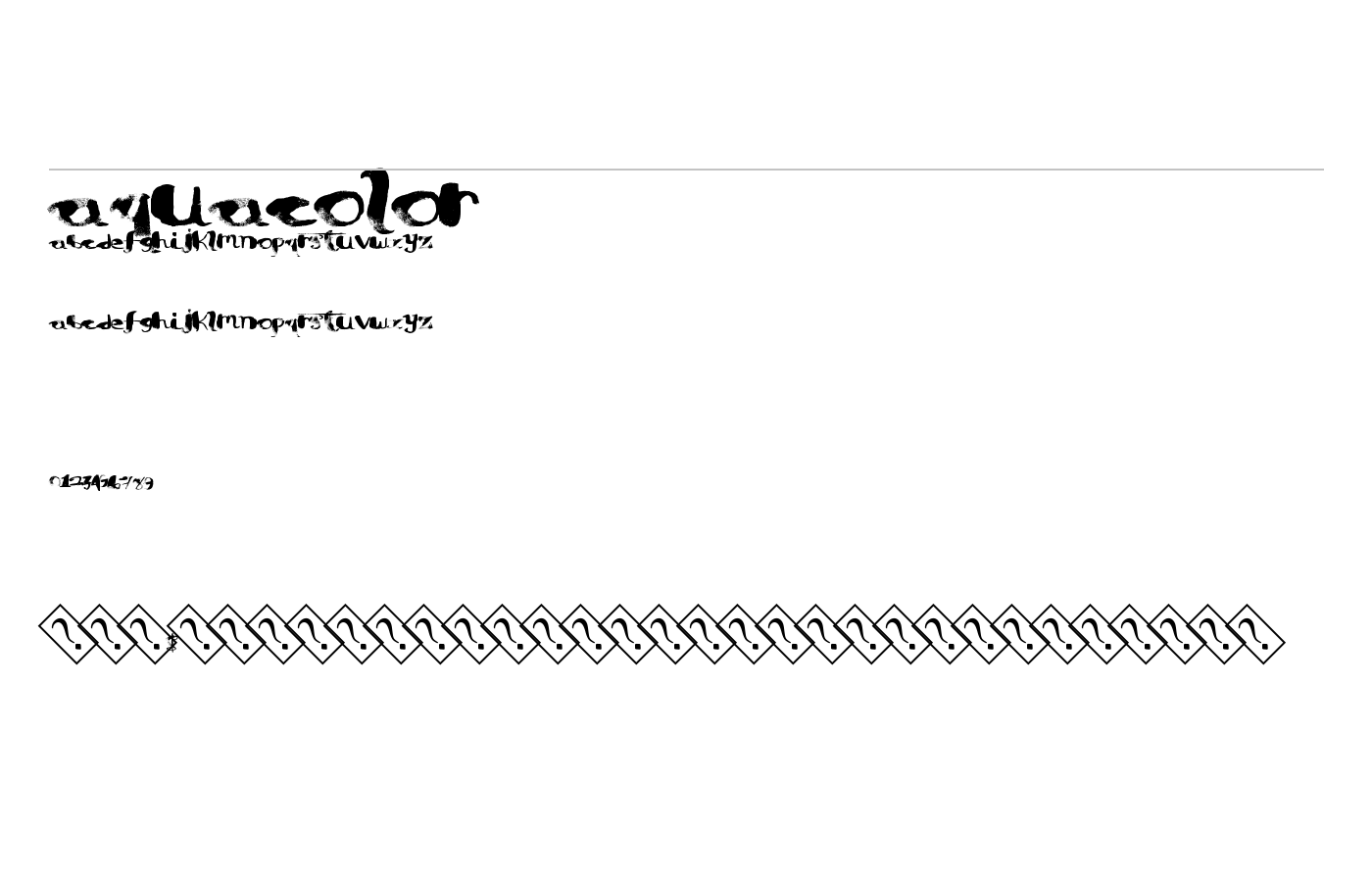
AquaColor is an expressive and artistic font characterized by a rough, hand-painted style that conveys a highly textured and organic feel. Its irregular shapes and bold strokes make it ideal for creative, edgy designs, particularly in branding, posters, and packaging that seek a unique, avant-garde aesthetic. This font works best in display contexts where its distinctive, ink-like appearance can truly stand out and grab attention.
AquaColor Font
About AquaColor Font
| Font family | AquaColor Font |
| Designer | Max Infeld |